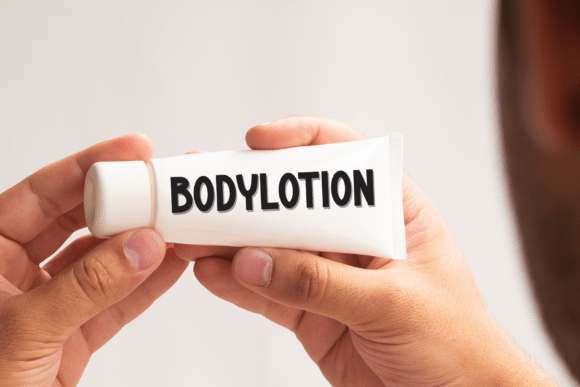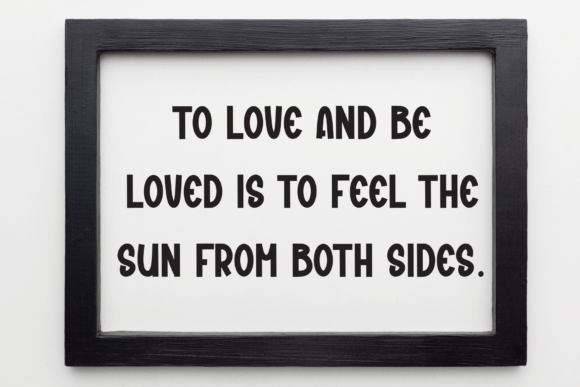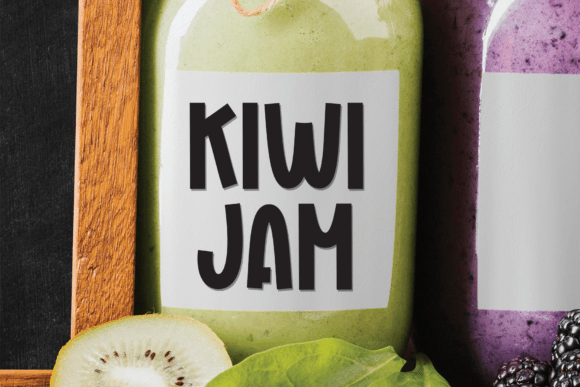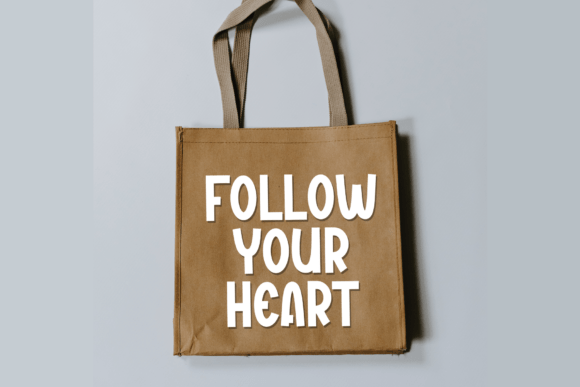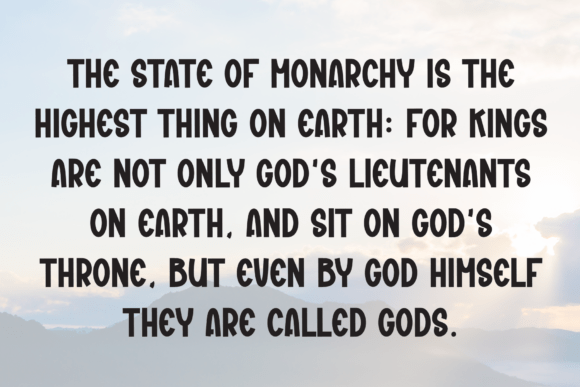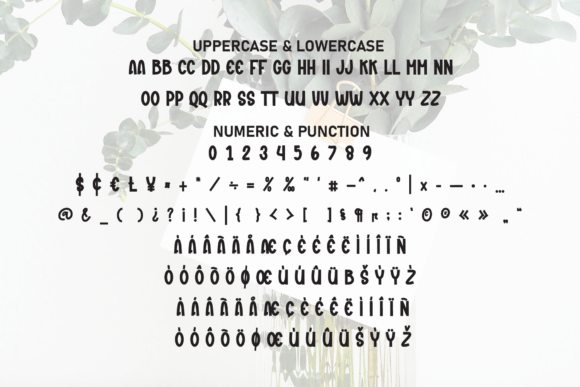
Introducing Book Nothing Font: The Perfect Blend of Modern Simplicity and Playful Charm
In the world of typography, fonts play a crucial role in conveying the tone and personality of a design. For designers and crafters looking for a font that embodies a casual yet stylish vibe, Book Nothing Font is an excellent choice. This article will delve into the features, benefits, and uses of Book Nothing Font, exploring how it can elevate your designs and add a fresh touch to your projects.
What is Book Nothing Font?
Book Nothing Font is a casual display font that seamlessly blends modern simplicity with a playful, approachable charm. Its clean shapes, soft edges, and well-balanced letterforms make it an ideal choice for a wide range of design applications. Whether you’re working on posters, branding materials, packaging, or social media graphics, Book Nothing Font is designed to add a friendly and stylish touch to your work.
Key Features of Book Nothing Font
• Clean Shapes and Soft Edges: The font features clean, geometric shapes with soft edges, giving it a friendly and approachable feel.
• Well-Balanced Letterforms: Each letterform is carefully crafted to ensure balance and harmony, making the font easy to read and visually appealing.
• Modern Simplicity: Book Nothing Font embodies modern simplicity, making it perfect for designs that require a clean and minimalist aesthetic.
• Playful Vibe: The font’s playful charm adds a touch of personality to any design, making it ideal for projects that require a friendly and approachable tone.
Benefits of Using Book Nothing Font
So, why choose Book Nothing Font for your design projects? Here are some benefits that make it an excellent choice:
• Versatility: Book Nothing Font is versatile and can be used for a wide range of design applications, from posters and branding materials to packaging and social media graphics.
• Readability: The font’s clean shapes and well-balanced letterforms ensure excellent readability, making it perfect for designs that require clear communication.
• Personality: Book Nothing Font adds a touch of personality to any design, making it ideal for projects that require a friendly and approachable tone.
Uses of Book Nothing Font
Book Nothing Font is an excellent choice for a variety of design projects, including:
• Posters: Add a fresh and friendly touch to your posters with Book Nothing Font.
• Branding: Use the font to create a consistent brand identity that exudes a playful and approachable vibe.
• Packaging: Book Nothing Font is perfect for packaging designs that require a clean and modern aesthetic.
• Social Media Graphics: Elevate your social media graphics with the font’s playful charm and excellent readability.
• Use for Headings and Titles: The font is perfect for headings and titles, adding a touch of personality and style to your design.
Book Nothing Font is an excellent choice for designers and crafters looking for a font that embodies modern simplicity and playful charm. With its clean shapes, soft edges, and well-balanced letterforms, it’s perfect for a wide range of design applications. Whether you’re working on posters, branding materials, packaging, or social media graphics, Book Nothing Font is sure to add a fresh and friendly touch to your projects. So, why not give it a try and see how it can elevate your designs?